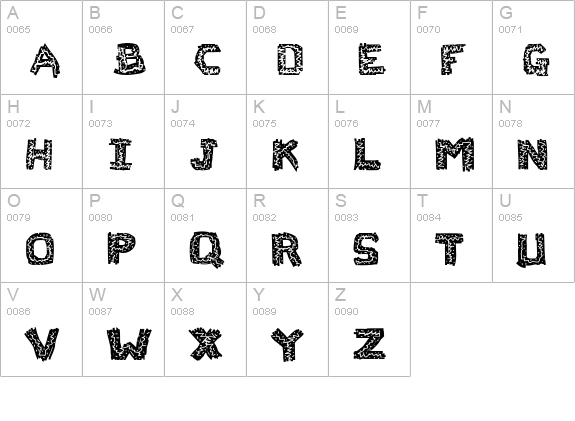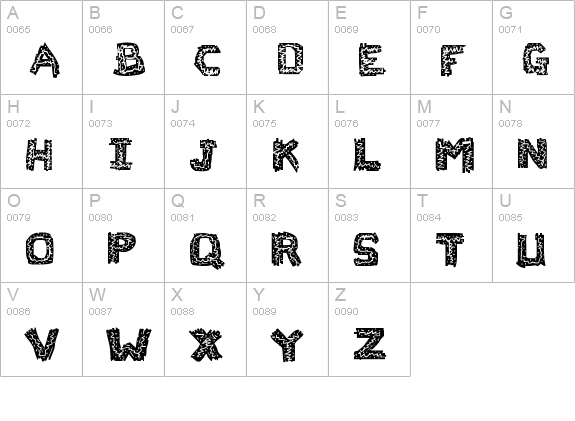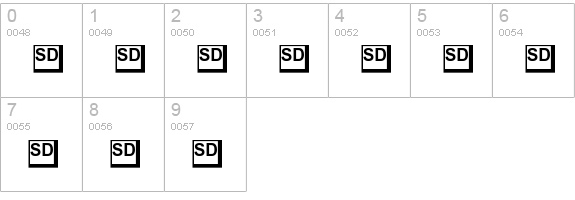
Flak Jacket Font Details
Flak Jacket font is a bold and modern typeface that exudes strength and confidence. With its sturdy letterforms and distinct character shapes, Flak Jacket is perfect for creating eye-catching headlines, posters, and branding materials. This versatile font strikes the perfect balance between edgy and professional, making it a great choice for a wide range of design projects. Best of all, Flak Jacket font is available for free download at FontsMarket.com. Whether you're a seasoned designer or just starting out, this font is a valuable addition to your toolkit. Don't miss out on the opportunity to use Flak Jacket and elevate your designs with its unique style and impact. Download it today and unleash your creativity with this exceptional typeface.